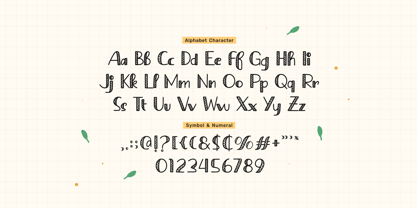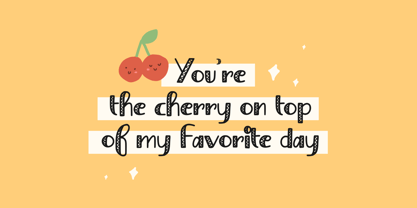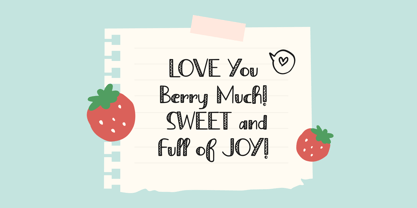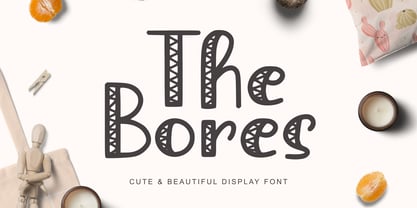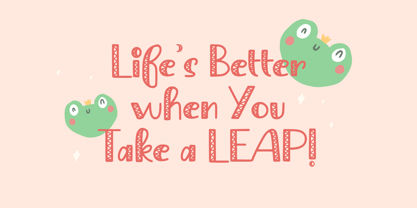
The Bores
by Imoodev
The The Bores Font Family was designed by Aulia Savira Putri and published by Imoodev. The Bores contains 1 styles.
Meet The Bores, a delightfully charming and playful display font designed to bring a smile to your face and a touch of handcrafted joy to your projects. This font is bursting with personality, making it perfect for anyone looking to create something truly special and unique. The most distinctive feature of The Bores is its creative, patterned fill. The thicker strokes of the uppercase letters and taller lowercase letters are filled with a fun, hand drawn triangle pattern. This unique texture gives the font a whimsical, almost tribal inspired feel. This font strikes a perfect balance between decorative and legible. The patterned characters are complemented by solid, clean lowercase letters, numerals, and symbols, ensuring your designs are eye-catching without being overwhelming. The slightly bouncy baseline adds to its organic, hand-lettered charm. This font is perfect for children's products, greeting cards, cheerful headlines, instagram quotes, seasonal promotions (valentine day, spring markets, holiday craft fairs), children decorations, mugs, or any project where you want to blend playful lettering with a handmade charm. Its creative diy vibe makes every message feel more personal and filled with positivity.
Designers: Aulia Savira Putri
Publisher: Imoodev
Foundry: Imoodev
Design Owner: Imoodev